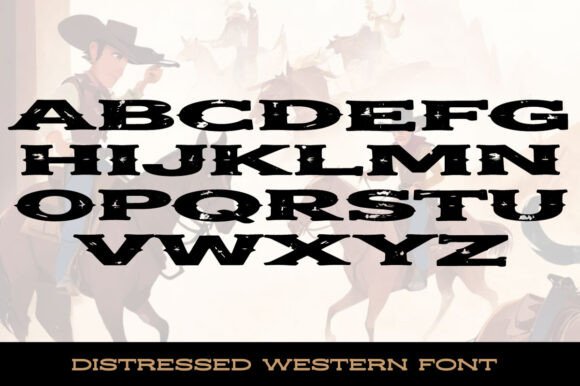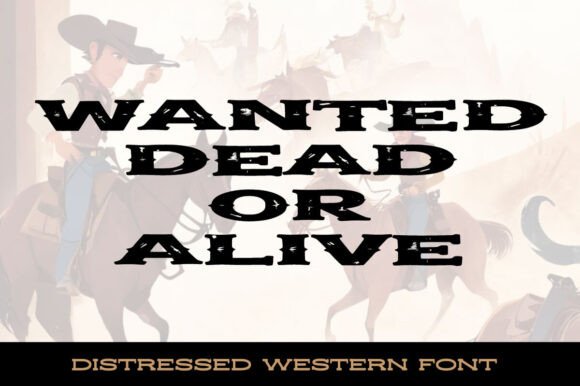
Introduction to Cowboy Double Wide Font
Cowboy Double Wide is a bold and rugged font that brings the spirit of the Old West to life.
With its extra-wide characters and distressed details, this font evokes the weathered charm of vintage saloon signs and frontier lettering Perfect for Western-themed projects, rustic designs, or bold headlines, Cowboy Doublewide commands attention with its larger-than-life presence.
Key Features of Cowboy Double Wide Font